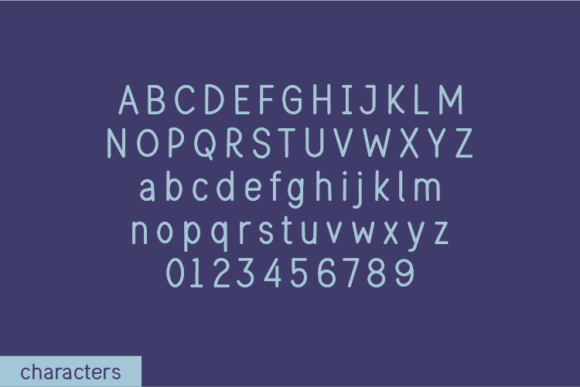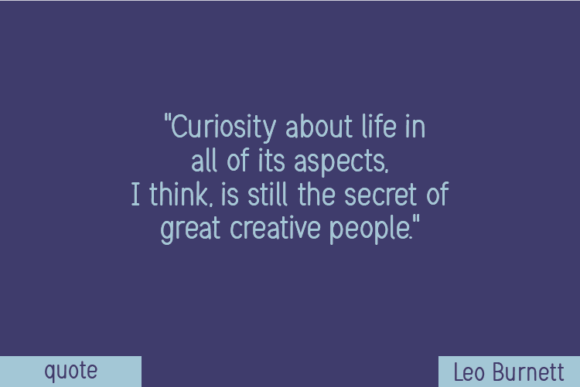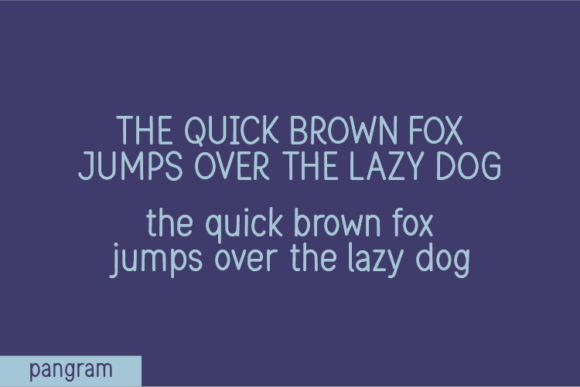
Introduction to Molecular Font
As a designer, there’s nothing quite like the rush of discovering a new high-quality font that perfectly captures the essence of your creative project. For me, it was a late-night brainstorming session with a blank canvas and a blank mind, when suddenly, the right font popped into my head – the Molecular Font. This unique, natural handwritten font had an undeniable charm to it, and I knew I had to dive deeper.
What sets the Molecular Font apart is its organic, untouched feel. Made without altering a single node in each character’s indentation, this design resource is a breath of fresh air in the world of fonts. Its transparent background and elegant lines make it a perfect fit for quotes, notes, tees, and any product design that requires a touch of sophistication.
Molecular Font
- Perfect for use in logos, branding, and other creative projects requiring a unique and modern aesthetic
Honest Review: Molecular Font
I recently had the chance to experiment with the Molecular Font, and I must say, it’s been an interesting experience. As a designer, I’m always on the lookout for high-quality design resources that can elevate my creative projects. The Molecular Font certainly delivers on that front.
- ✨ Unique, futuristic aesthetic that’s perfect for sci-fi or tech-related projects.
- ✨ High-quality glyphs that render smoothly on both desktop and mobile devices.
- ✨ Transparent background option allows for seamless integration with custom backgrounds.
- ⚠️ Limited character set, which may not be suitable for projects that require extensive text.
- ⚠️ Some users may find the font’s futuristic style overwhelming or difficult to read.
Overall, I’d say the Molecular Font is a solid addition to any designer’s toolkit. While it may not be perfect, its unique aesthetic and high-quality glyphs make it a great choice for creative projects that require a touch of futurism.
Molecular Font
The Molecular Font is a high-quality design resource that offers a unique and modern look for any creative project. With a transparent background, it’s easy to integrate into your design.
Tips for Getting the Most Out of Molecular Font
Experiment with different font sizes and colors to create a unique look, and use the transparent background to create a sense of depth in your design.
The Molecular Font is perfect for creating modern and futuristic designs, such as science fiction posters, futuristic logos, and futuristic websites.